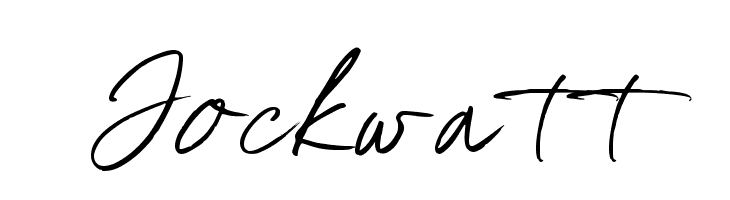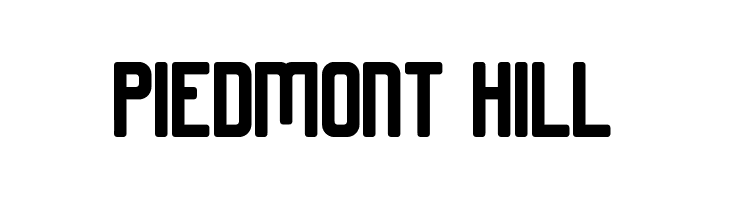
A bold, geometric font with sharp angles and a modern, assertive style.
A lively and expressive script font with flowing, cursive letterforms.
A bold, textured script font with a hand-painted appearance.
A lively, cursive script font with interconnected letters and moderate stroke thickness.
A playful and whimsical script font with flowing, interconnected letterforms.
A bold, handwritten script font with a lively and informal style.
Not a valid font; contains only placeholders and swashes.
A bold, geometric font with a dynamic, slanted style.
An elegant, flowing script font with smooth, cursive strokes and artistic flair.
An elegant and flowing script font with artistic flourishes.
设计师偏爱 Double Pivot Personal Used, Miracle Day Regular, Quicksliver, Gayatri Script and Syelma,因为其造型干净、适用范围广—— 从品牌识别到落地页、海报都能胜任。